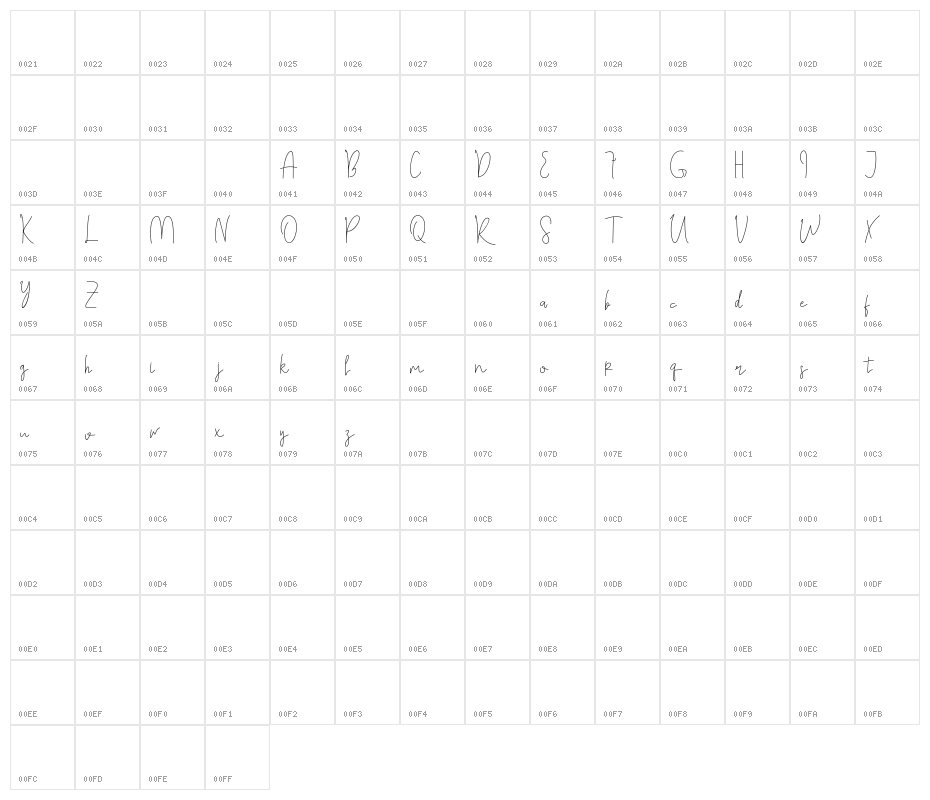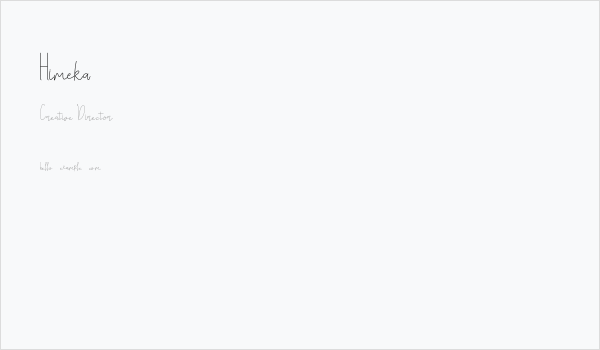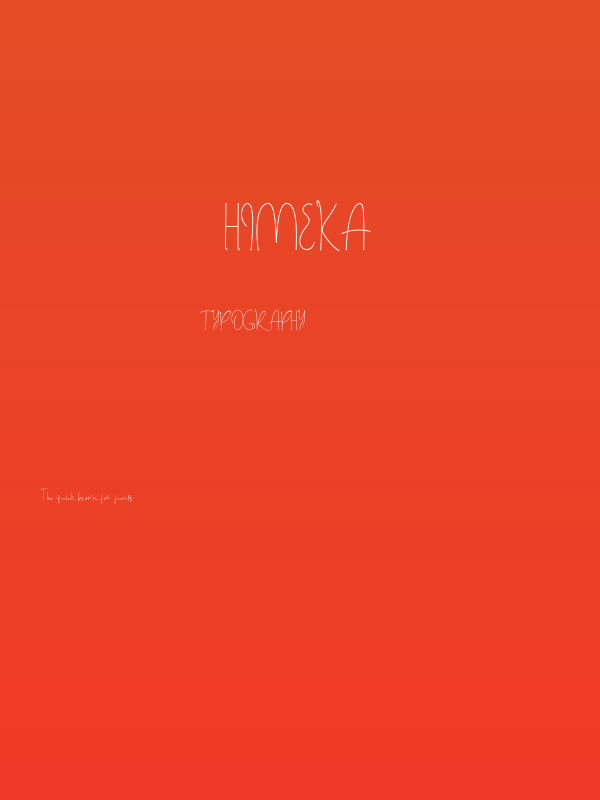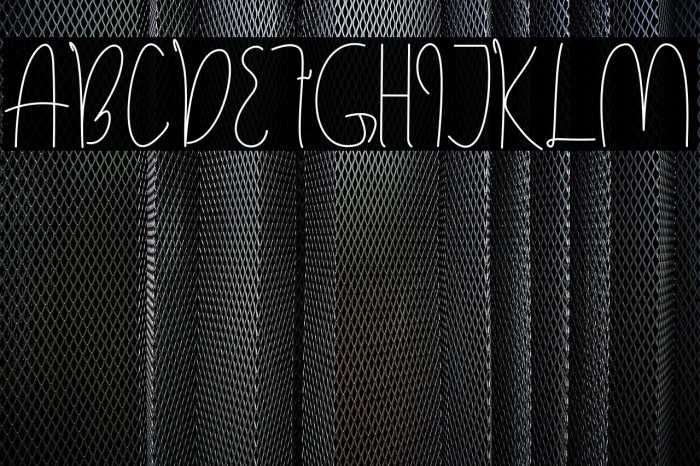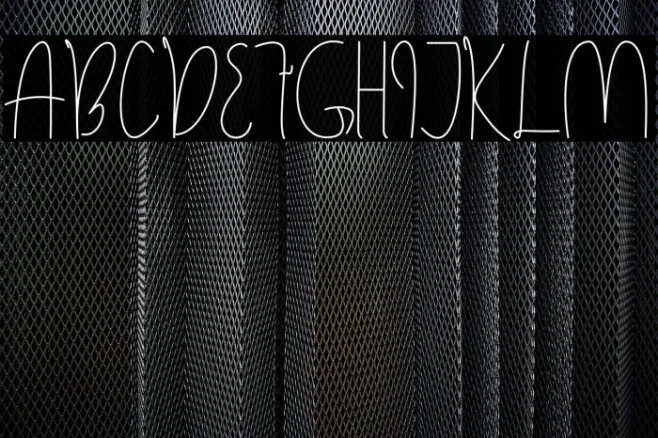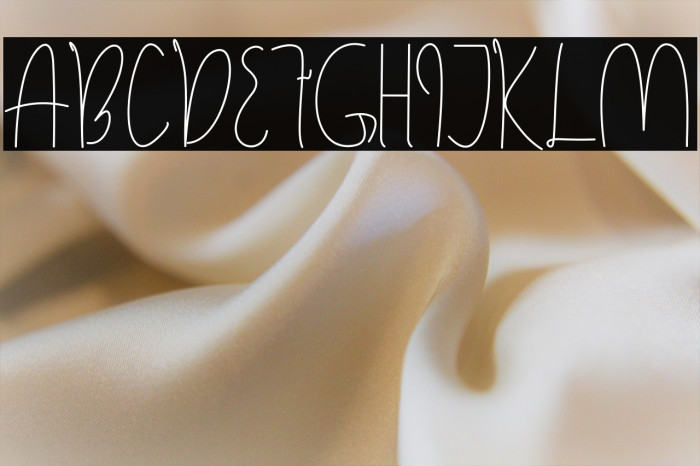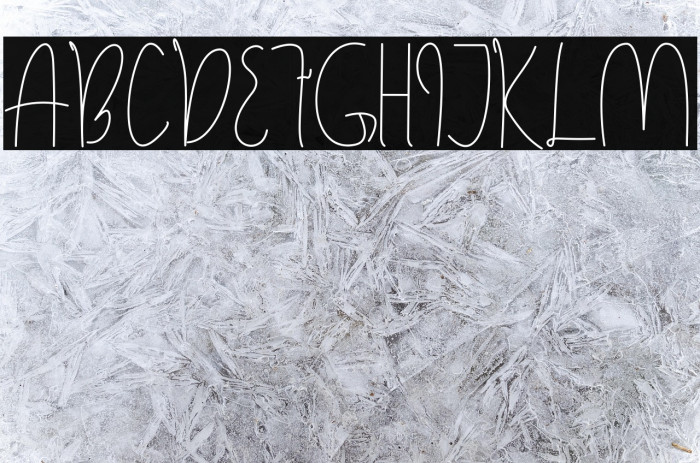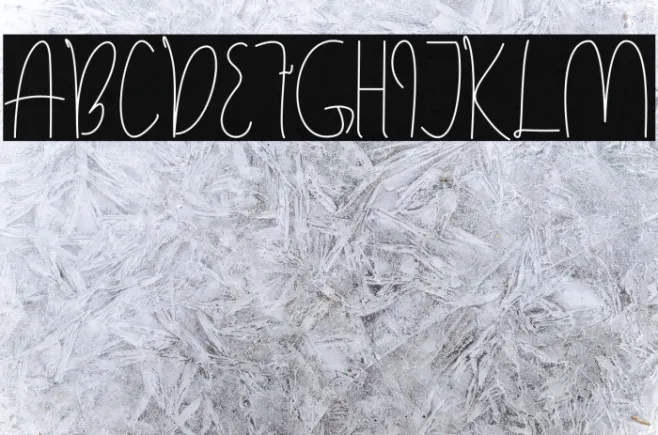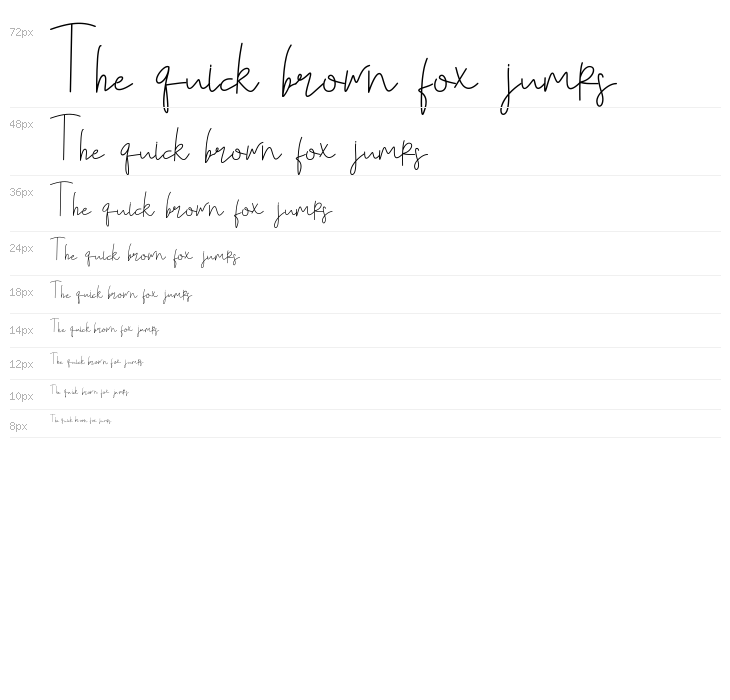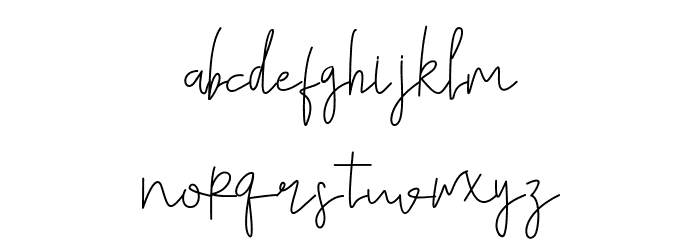
Himeka Font
Himeka Description
This font features a delicate and whimsical handwritten style, characterized by its thin, flowing lines and playful curves. The uppercase letters are tall and narrow, with unique, artistic flourishes that give each character a distinct personality. The lowercase letters maintain a consistent flow, with smooth connections that enhance the script-like appearance. The overall design is airy and light, making it ideal for projects that require a touch of elegance and creativity. Its informal yet sophisticated look makes it versatile for various design applications.